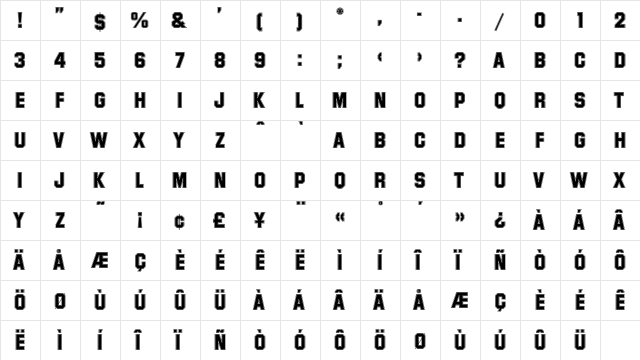
Superstar .. Plain
| Year | 1988 |
Design Context for Superstar Typeface
Superstar offers clean, dependable letterforms without strong stylistic allegiance, making it a practical choice for designers who need flexibility.